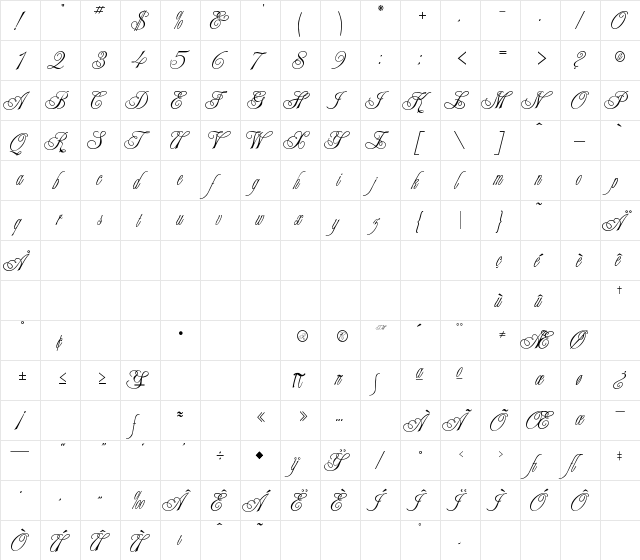
ITFChampagneScript Regular
Design Context for ITFChampagneScript Typeface
ITFChampagneScript brings a calligraphic fluidity to the page — its connecting strokes and expressive curves give it an unmistakably human quality.
Font Pairing: Combine ITFChampagneScript with a simple geometric sans for maximum contrast — the tension between flowing curves and clean structure is a classic typographic pairing.
Pro Tip: Pair ITFChampagneScript with a clean sans-serif for supporting text. The contrast between fluid script and geometric structure creates an elegant typographic hierarchy.